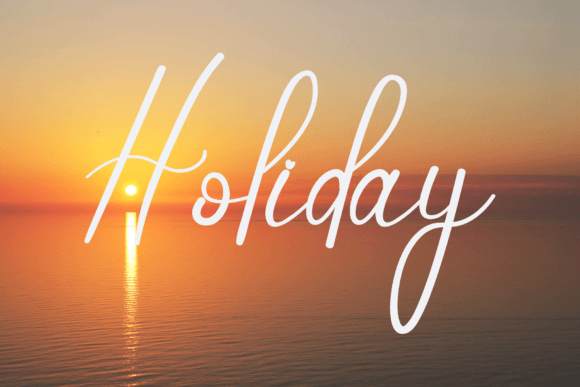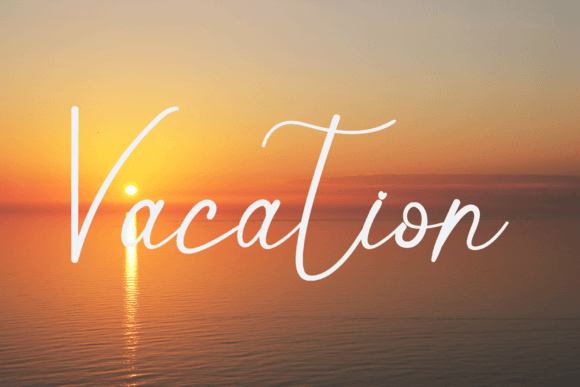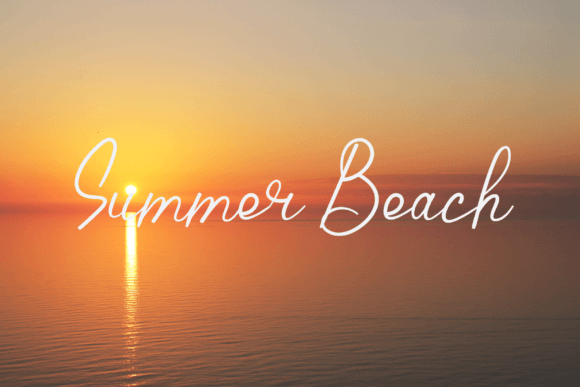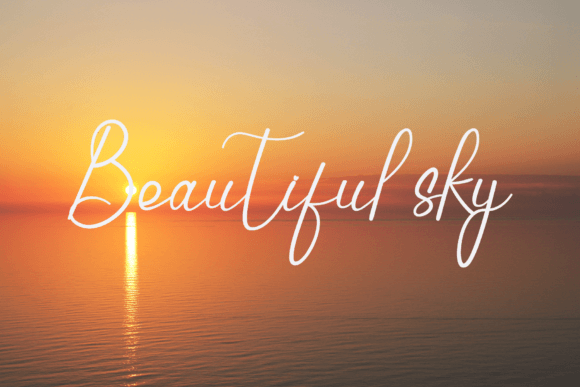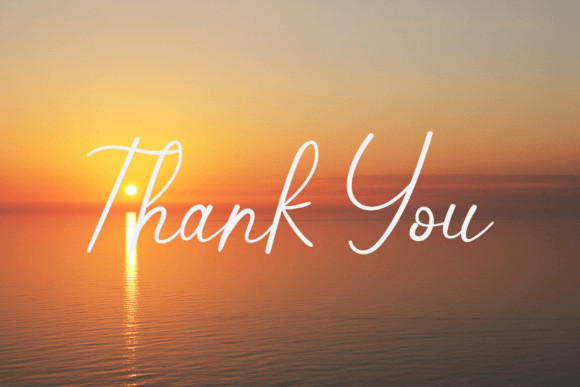
Sunshine Font
About Sunshine Font
Introducing Sunshine, a sweet and beautiful handwritten font designed to add a touch of luxury and charm to your creative projects. Featuring characters that dance along the baseline, this font is crafted to bring a sense of elegance and sophistication to your designs.
The charm of Sunshine lies in its handwritten style, which adds a natural and graceful touch to your projects. Whether used in digital designs or print materials, this font is crafted to enhance the overall visual appeal.
In various design contexts, Sunshine becomes a delightful choice. Its sweet and beautiful script brings a luxurious spark to a wide range of applications, making it suitable for anything from wedding invitations to branding projects.
For wedding invitations, Sunshine offers a romantic and elegant option. The font’s well-balanced characters and beautiful script add an extra layer of beauty to the invitations, creating a memorable and refined presentation.
In branding and design projects, Sunshine carries a sense of luxury and sophistication. The font’s handwritten style enhances your messages, creating a visually appealing and charming experience for your audience.
Sunshine is versatile and adaptable, making it suitable for a variety of design needs where a sweet and beautiful handwritten style is desired. Whether you’re working on digital designs or print materials, this font is designed to bring a touch of luxury to your creative projects.
In conclusion, Sunshine is a sweet and beautiful handwritten font perfect for wedding invitations, branding, and more. Choose Sunshine to infuse your designs with a touch of elegance, creating visually appealing and sophisticated outcomes across a variety of creative applications.